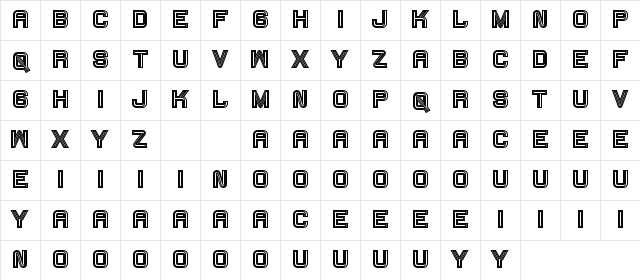
Complete Fearcheer Demo Outline Regular glyph index. Displaying only characters natively supported by Fearcheer Demo Outline Regular font.
Fearcheer Demo Outline is built around its visual character rather than neutral utility - its distinctive forms are designed to make an impression at display sizes.
Font Pairing: Pair with a clean neutral sans-serif for body copy to let Fearcheer Demo Outline's character lead without overwhelming the composition.
Pro Tip: Use Fearcheer Demo Outline exclusively at display sizes - it was designed to be seen, not read at length. Let a neutral companion handle body copy.